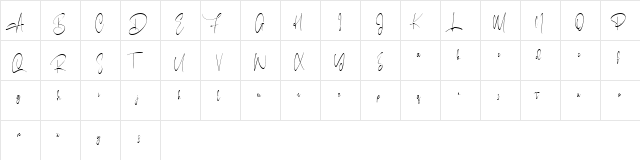
Clairdelune Free Font Regular
Design Context for Clairdelune Free Font Typeface
Clairdelune Free Font is a composed and adaptable typeface that performs quietly and consistently across a wide range of design contexts.
Pro Tip: Use Clairdelune Free Font in both headline and body roles to test its range before committing to a single application.